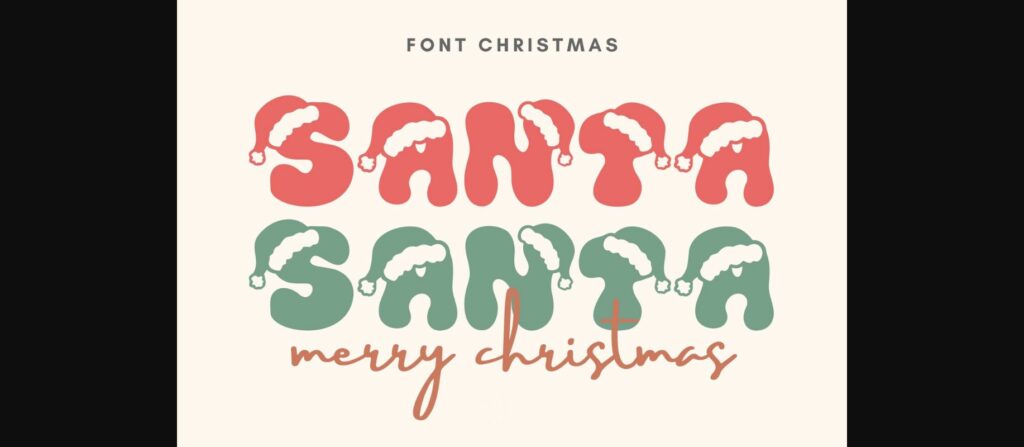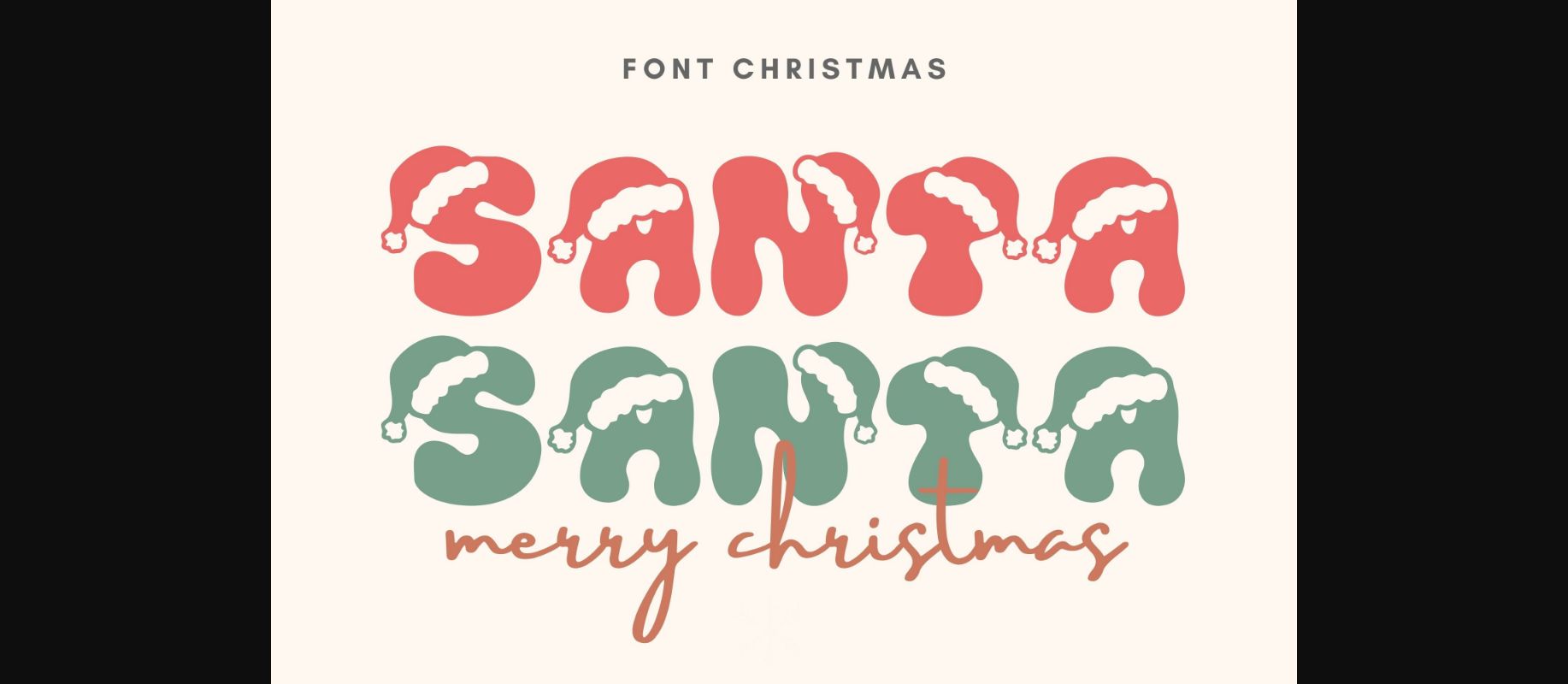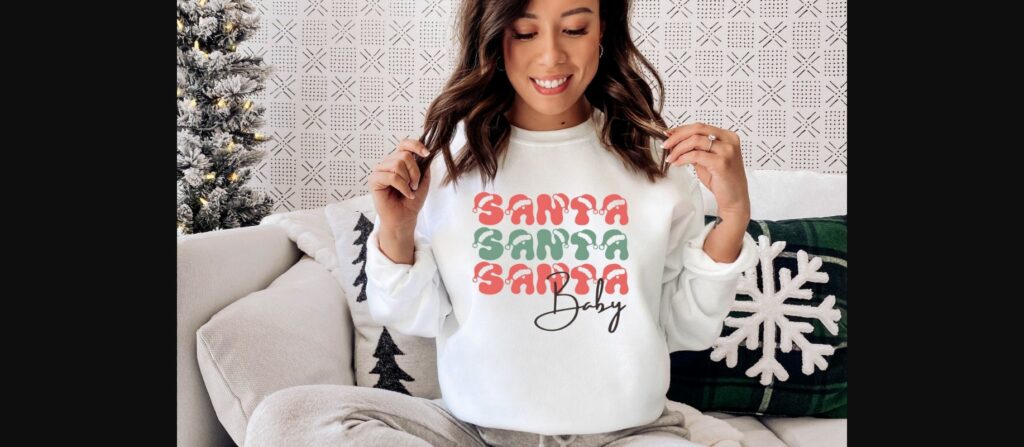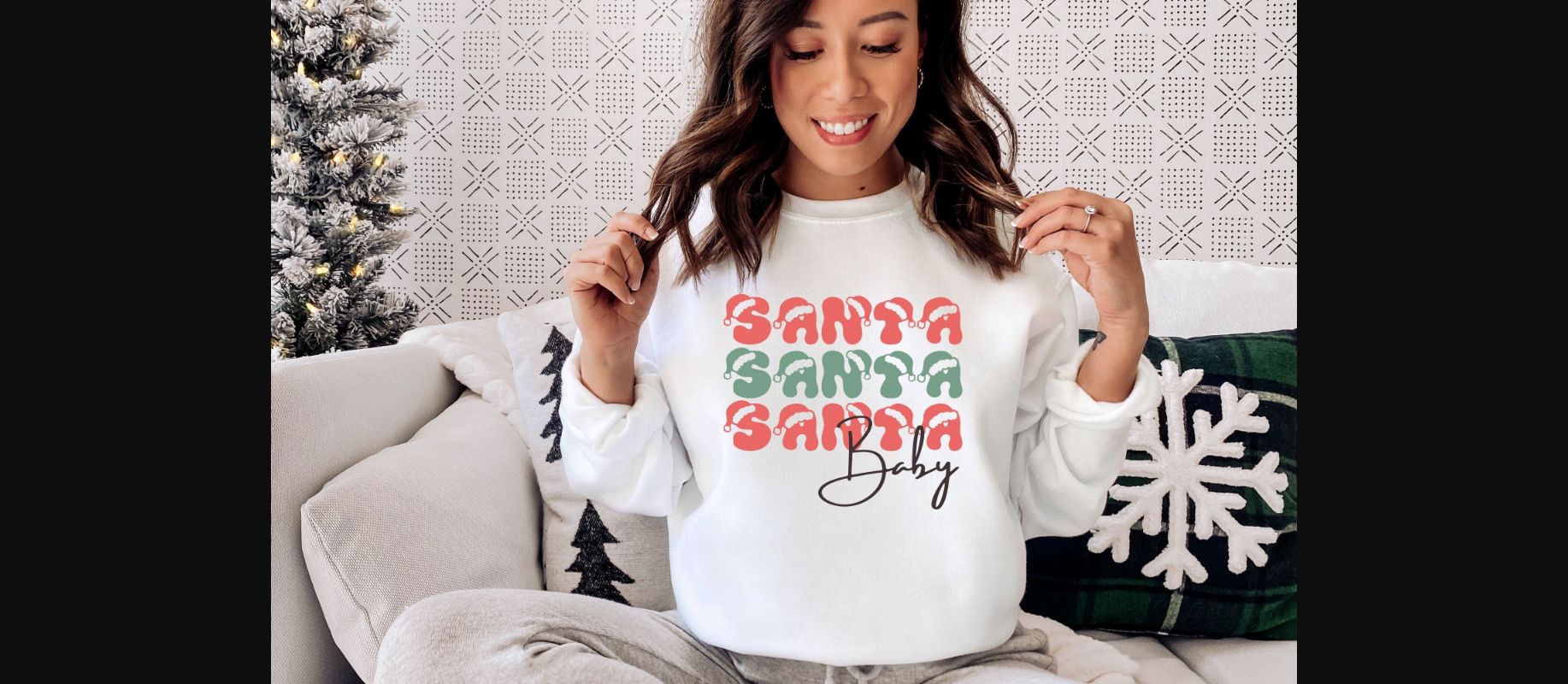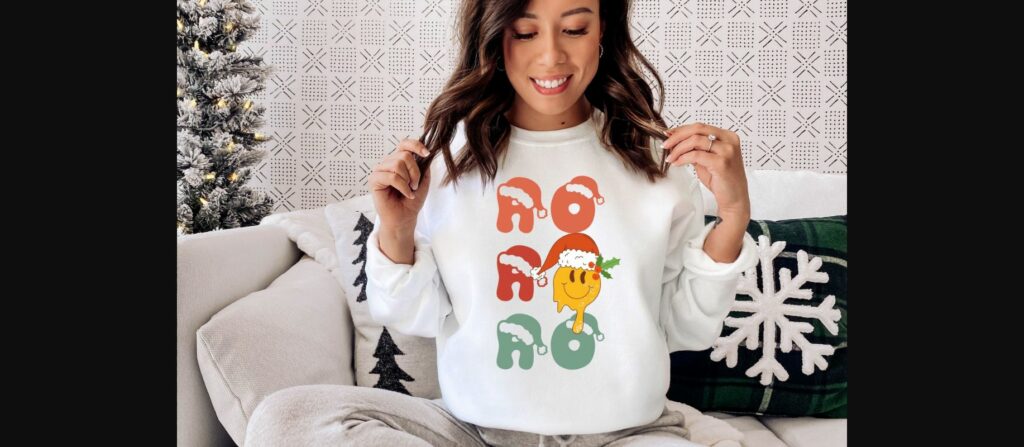
Santa Santa Font
About Santa Santa Font
Santa Santa font is a festive decorative typeface that adds a jolly touch to your holiday designs. Each letter comes adorned with Santa’s iconic red hat, bringing a cheerful and Christmassy spirit to your projects. Ideal for creating holiday-themed invitations, greeting cards, and festive graphics, Santa Santa is like a joyful ho-ho-ho in every letter.